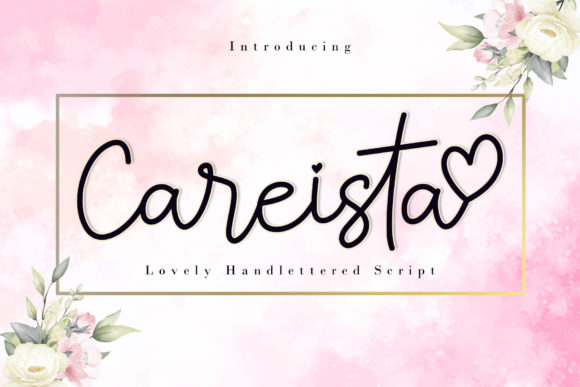
Prepare to be captivated by Careista, the enchanting script font that will elevate your Instagram presence to new heights! Its graceful handwritten style dances across the screen, exuding an irresistible charm that is sure to leave a lasting impression.
With Careista, you can effortlessly craft personalized nameplates for your Instagram profile, adding a touch of unique flair to your online identity. Its PUA encoding grants you seamless access to an array of glyphs and swashes, empowering you to unleash your creativity and create captivating designs.
Careista's elegant calligraphic heritage blends harmoniously with a modern aesthetic, resulting in a font that is both timeless and utterly captivating. Its distinct style will transform your Instagram posts into captivating works of art, attracting attention and making your content stand out from the crowd.
Whether you're a creative entrepreneur seeking to build a memorable brand, a social media enthusiast eager to elevate your online presence, or simply someone looking to add a personal touch to your Instagram profile, Careista is the perfect choice.
Embrace the allure of Careista and watch as your Instagram profile blossoms into a visually stunning masterpiece that reflects your unique style and captivates your audience.